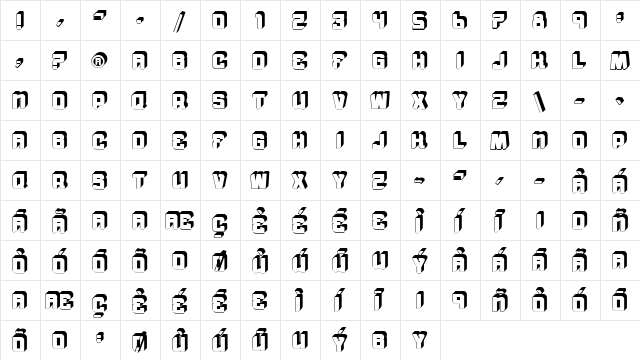
vtks morning rain 3D Regular
| Foundry | douglas vitkauskas |
| Designer | DOUGLAS VITKAUSKAS |
Design Context for vtks morning rain 3D Typeface
vtks morning rain 3D is a composed and adaptable typeface that performs quietly and consistently across a wide range of design contexts.